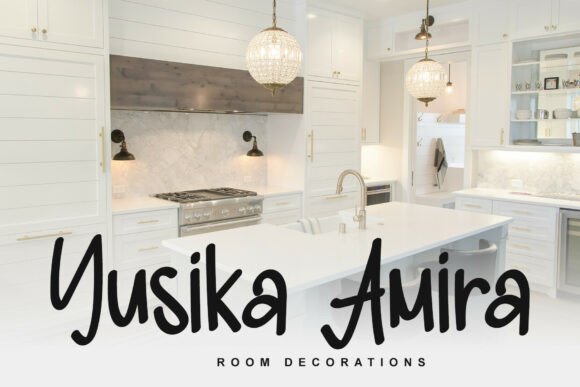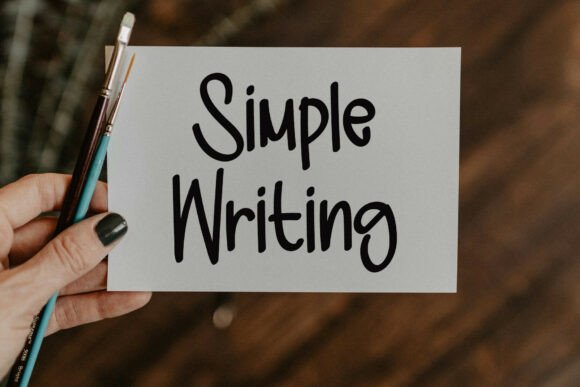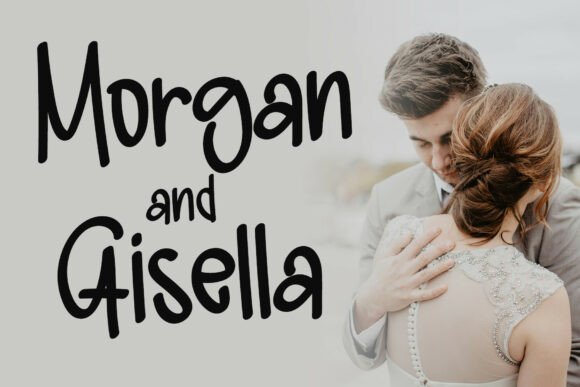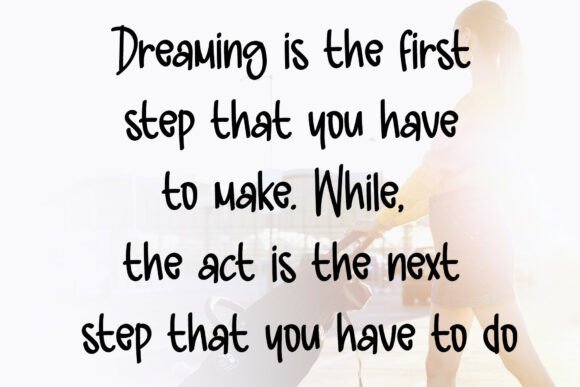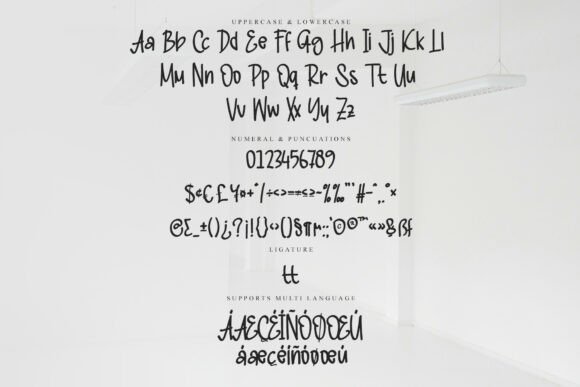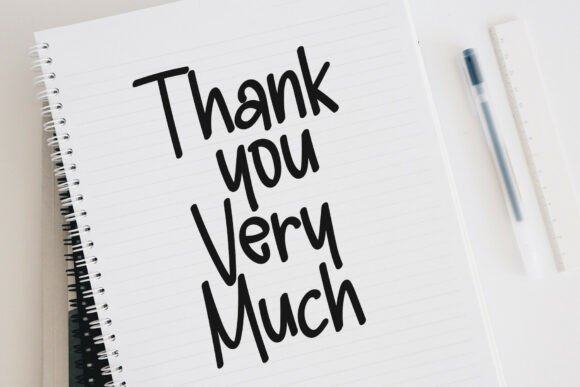
Introducing Grinchy Font: The Epitome of Elegance and Timelessness
In the realm of typography, few fonts manage to strike a balance between sophistication and boldness. Grinchy Font is one such exceptional typeface that seamlessly merges the fluidity of script handwriting with the enduring appeal of vintage design. This unique blend results in a font that exudes class, making it an ideal choice for designers and crafters looking to create a lasting impression.
The Beauty of Grinchy Font
Grinchy Font is characterized by its fluid strokes, graceful curves, and dynamic flow. These features collectively contribute to its sophisticated yet powerful aesthetic, making it perfect for a wide range of applications. Whether you’re looking to craft a stylish signature, design a brand identity, or evoke a nostalgic vintage feel, Grinchy Font delivers elegance and uniqueness effortlessly.
Key Features of Grinchy Font
- Fluid Strokes: The fluidity of Grinchy Font’s strokes gives it a natural, hand-written feel that captures the essence of script typography.
- Graceful Curves: The graceful curves add a touch of sophistication and elegance, making the font suitable for high-end branding and design projects.
- Dynamic Flow: The dynamic flow of Grinchy Font ensures that it remains engaging and visually appealing, whether used in headings, titles, or body text.
- Bold and Timeless Vintage Touch: The vintage element of Grinchy Font gives it a timeless quality, making it versatile enough to be used in both modern and traditional design contexts.
Applications of Grinchy Font
Grinchy Font’s versatility makes it suitable for a variety of design projects. Here are some of the key areas where this font truly shines:
Branding and Logo Design
For businesses looking to establish a strong brand identity, Grinchy Font offers the perfect combination of elegance and boldness. Its unique aesthetic can help brands stand out in a crowded market, conveying a sense of sophistication and professionalism.
Vintage and Nostalgic Designs
Grinchy Font’s vintage touch makes it an excellent choice for projects that aim to evoke a sense of nostalgia. Whether you’re working on a retro-themed advertisement, a historical project, or simply want to add a touch of classic charm to your design, Grinchy Font is an excellent choice.
Wedding and Event Invitations
The elegant and sophisticated nature of Grinchy Font makes it perfect for wedding invitations, event posters, and other formal announcements. It adds a touch of class and refinement, setting the tone for a memorable occasion.
Packaging and Product Design
Grinchy Font can also be used effectively in packaging and product design, particularly for luxury goods and high-end products. Its bold yet elegant appearance can help products stand out on store shelves, conveying a sense of quality and sophistication.
Why Choose Grinchy Font?
In a world where typography plays a crucial role in design, Grinchy Font stands out for its unique blend of script elegance and vintage boldness. Here are some reasons why designers and crafters should consider Grinchy Font for their projects:
- Unique Aesthetic: Grinchy Font offers a distinctive look that can help designs stand out from the crowd.
- Versatility: Its combination of elegance and boldness makes it suitable for a wide range of design applications.
- Timeless Appeal: The vintage touch of Grinchy Font ensures that it remains relevant and stylish for years to come.
- Ease of Use: Despite its sophisticated appearance, Grinchy Font is easy to read and use in various design contexts.
Grinchy Font is a remarkable typeface that brings together the best of script handwriting and vintage design. Its fluid strokes, graceful curves, and dynamic flow make it an excellent choice for designers and crafters looking to create sophisticated yet powerful impressions. Whether you’re working on branding, vintage projects, or simply seeking a unique font for your design needs, Grinchy Font is sure to deliver elegance and uniqueness effortlessly.
With its broad range of applications and timeless appeal, Grinchy Font is poised to become a favorite among designers seeking to elevate their projects with a touch of class and sophistication. Experience the elegance and versatility of Grinchy Font in your designs and discover the difference it can make.